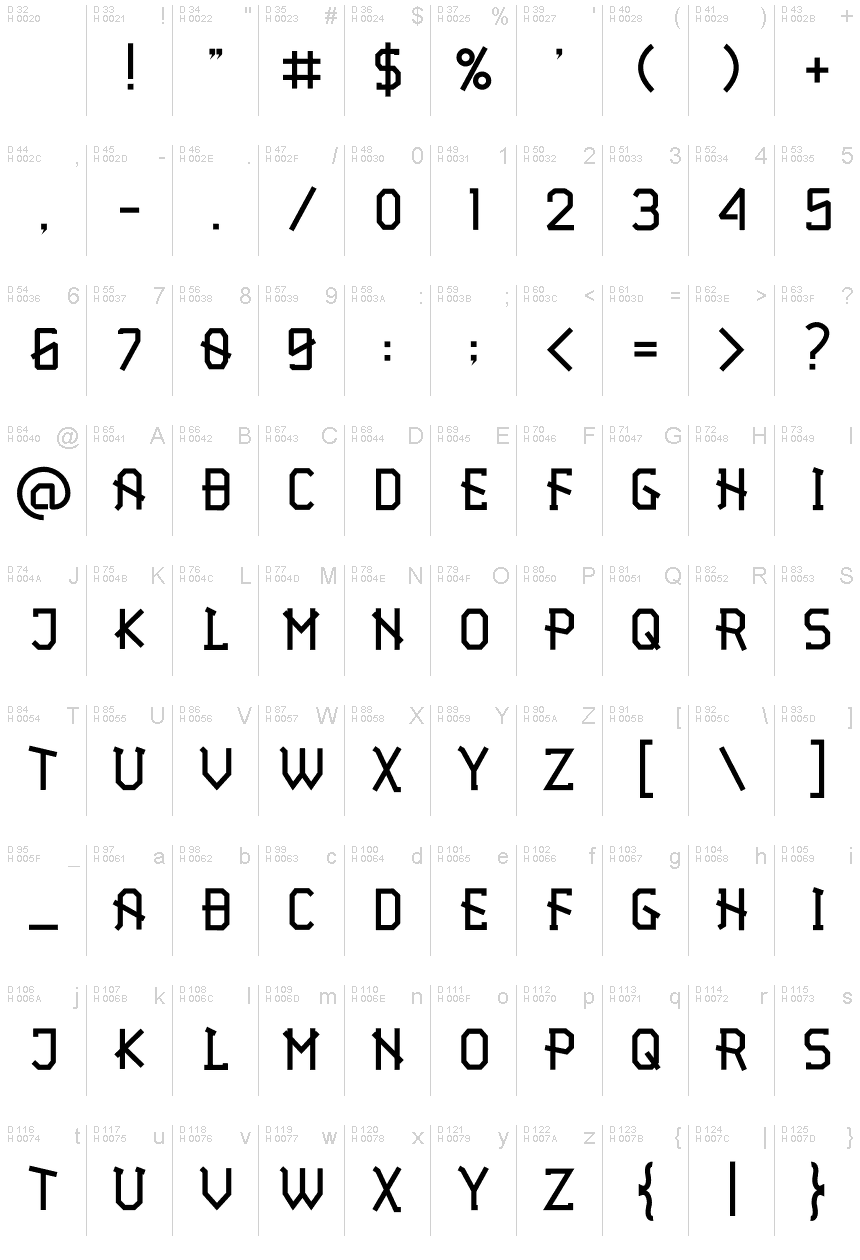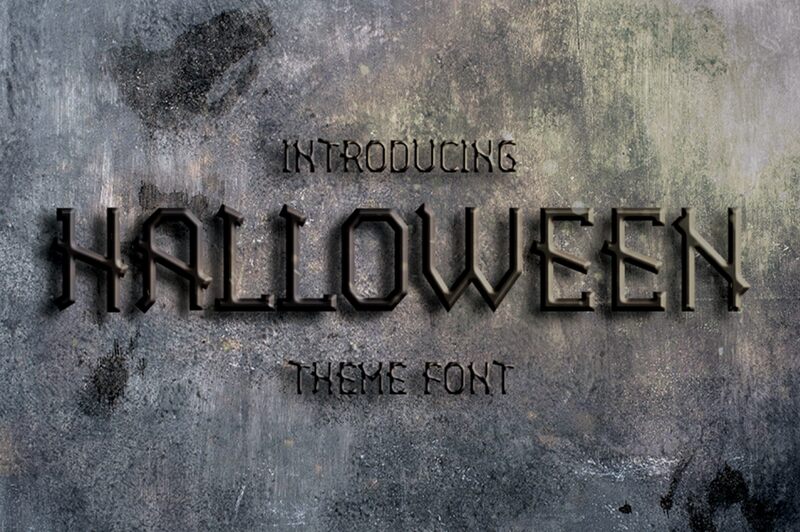
Halloween
Halloween is a bold and modern display font designed by Erik Studio. Expertly designed to make your creation look out of this world, this font has the potential to take your creative ideas far further.